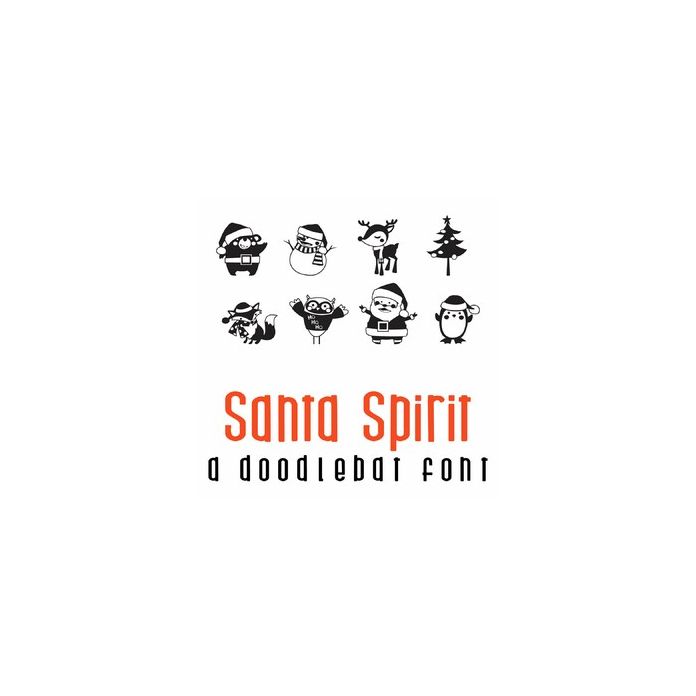
This fun doodlebat font features 26 Santa themed animals and Christmas items. Perfect for cards, crafts, gifts, decor, scrap book pages, planner stickers and more!